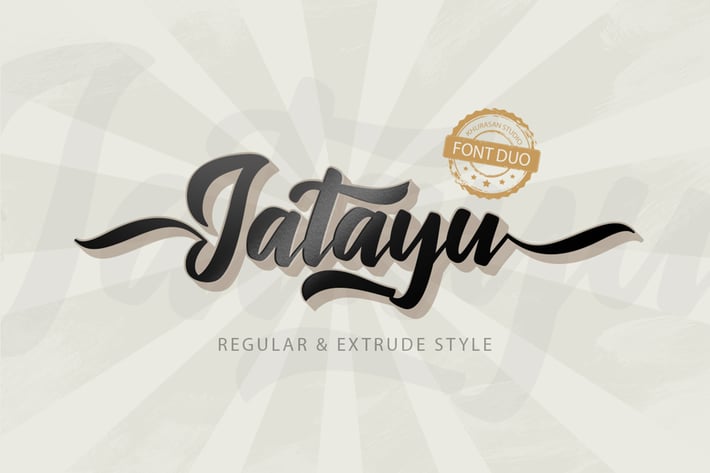
Jatayu Scipt Font Layered
The Jatayu Script Font is a fun bold script font, fresh & modern style. Jatayu Script has two different style, regular & expand. You can combine regular and expand to get amazing results. Jatayu Script Font suitable for logo, branding, greeting card, poster and any design that you create.